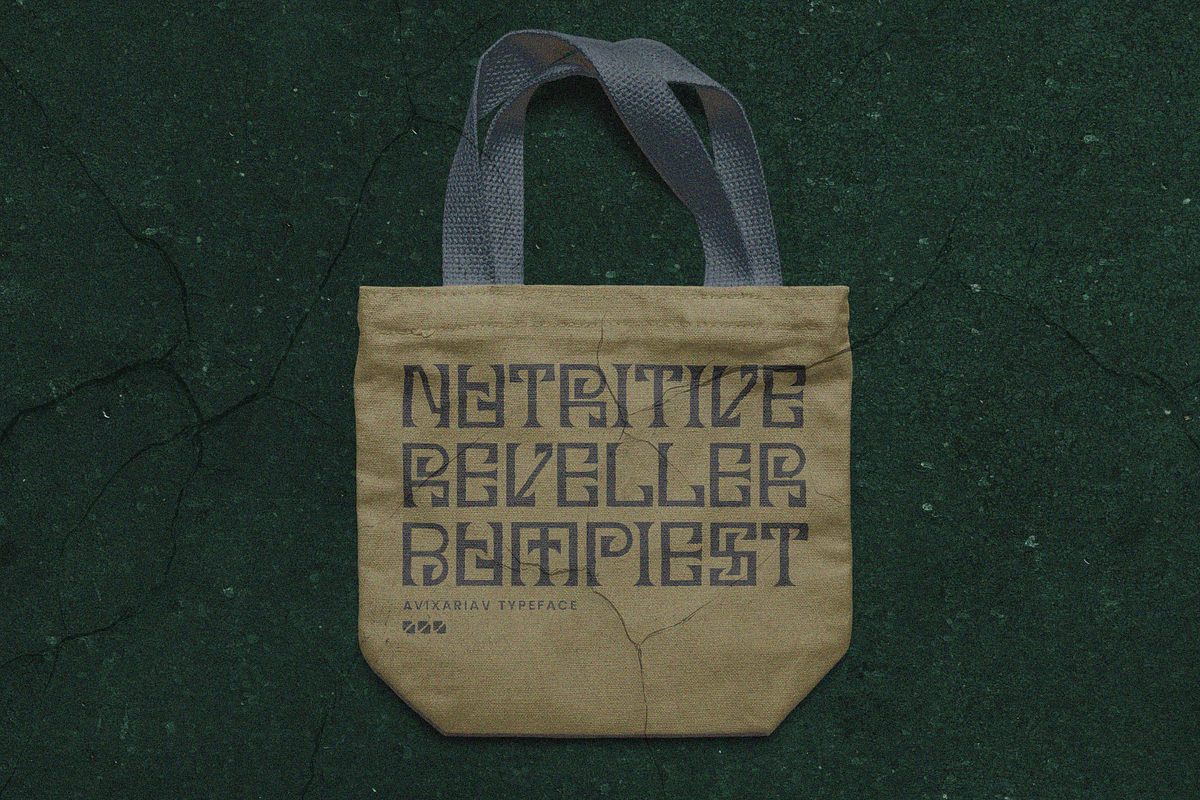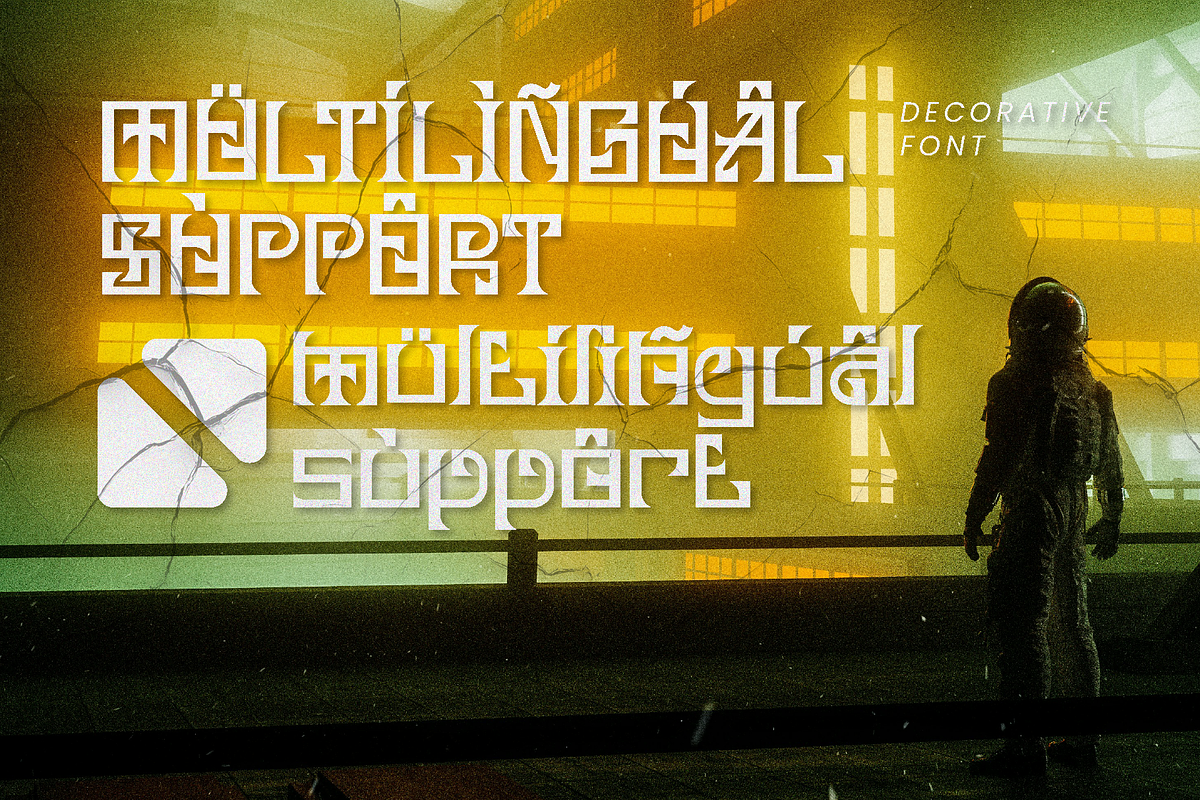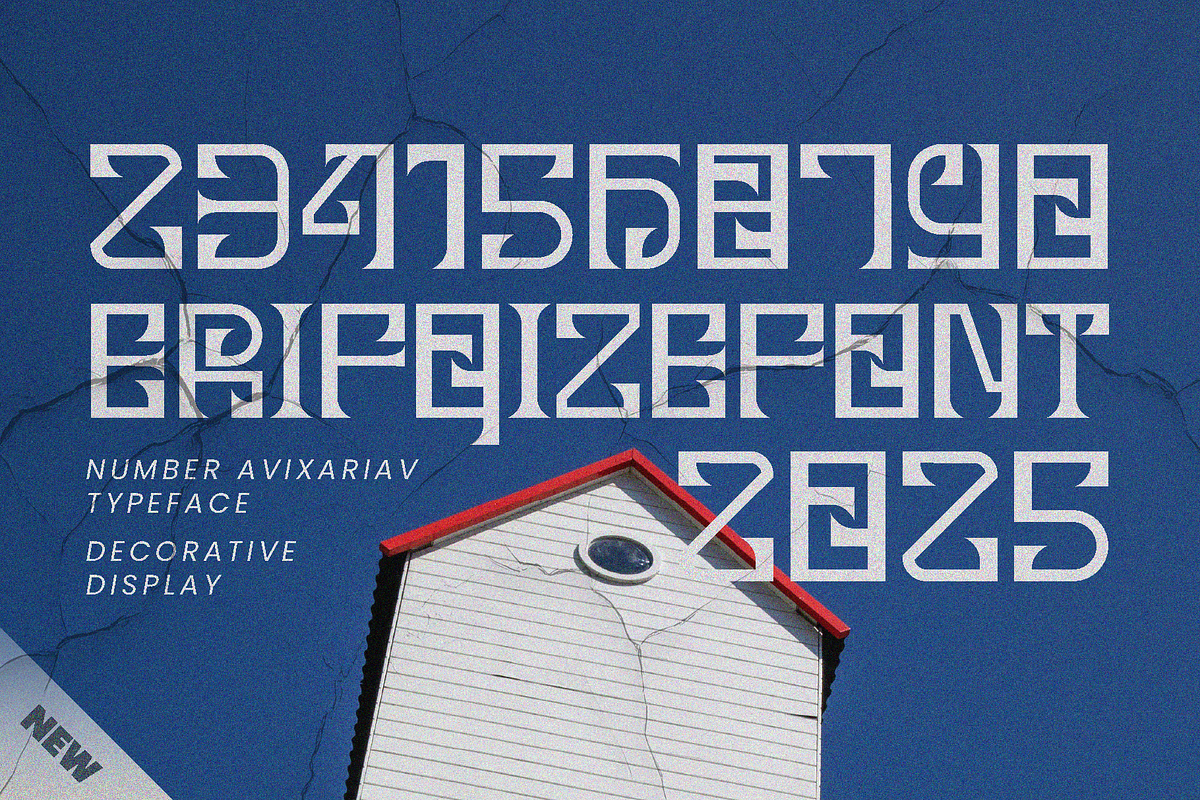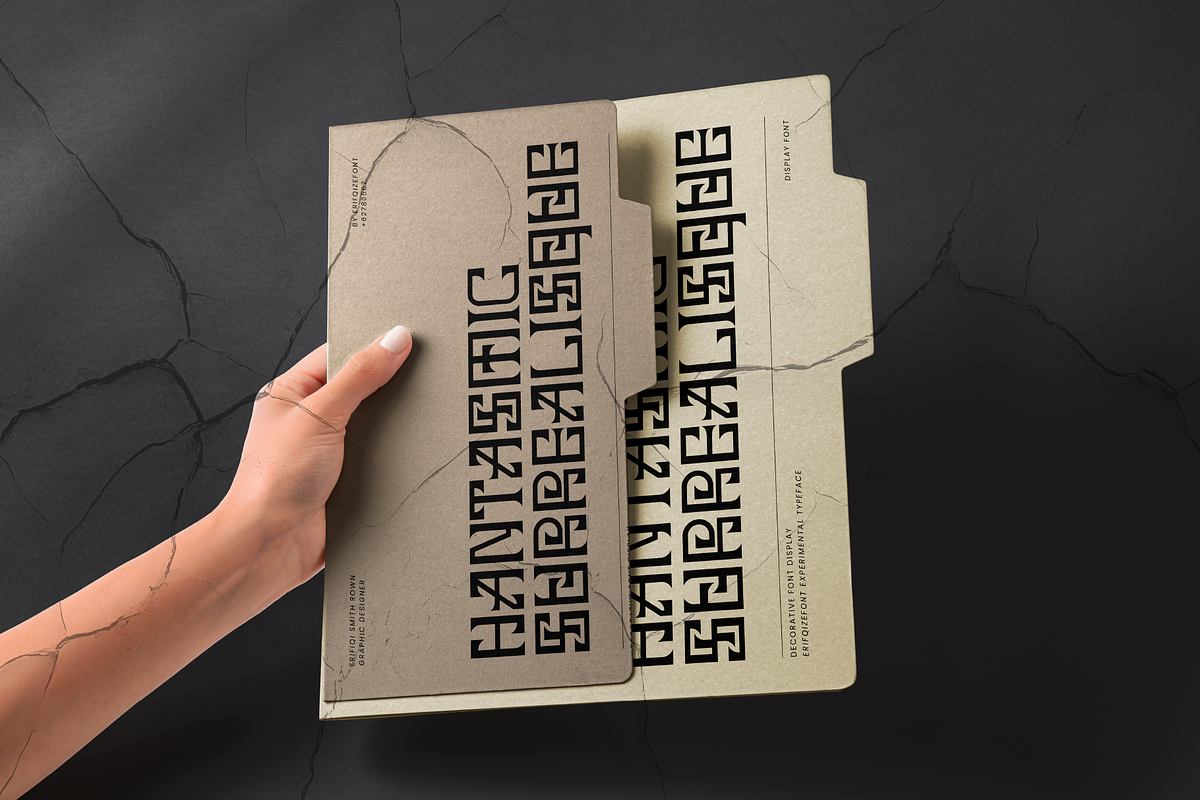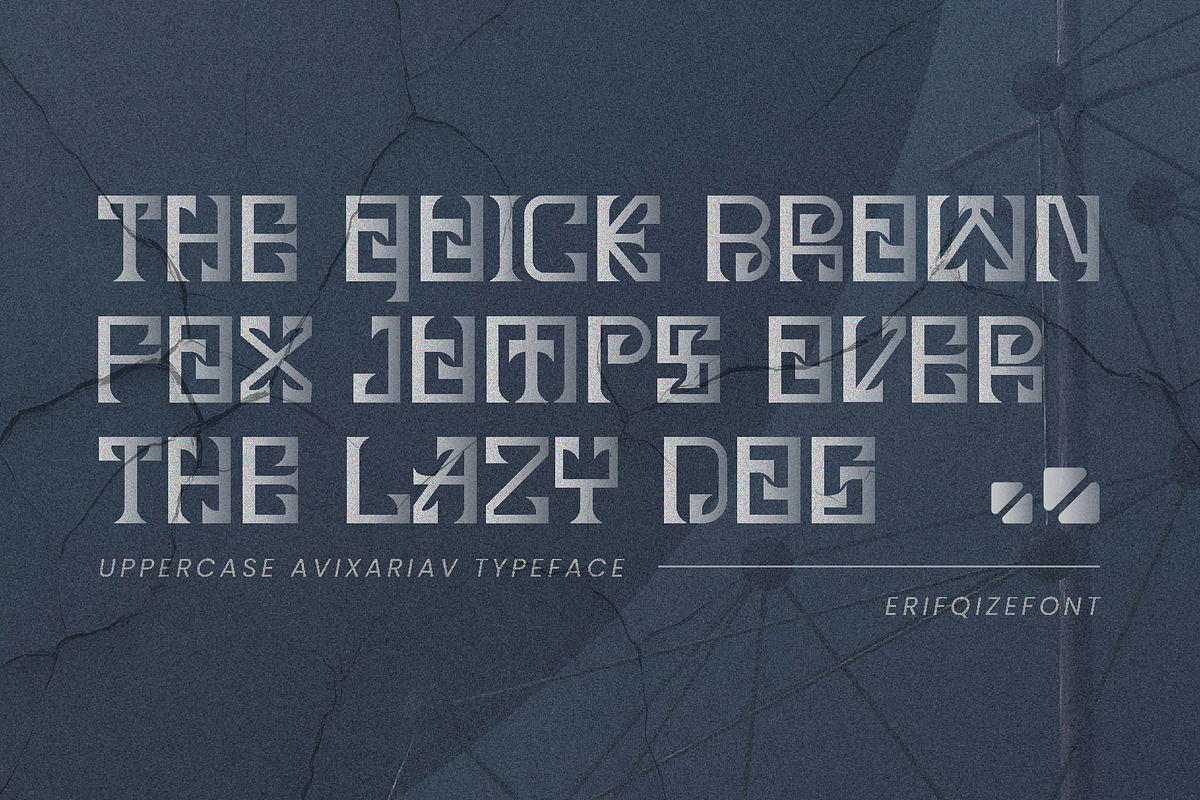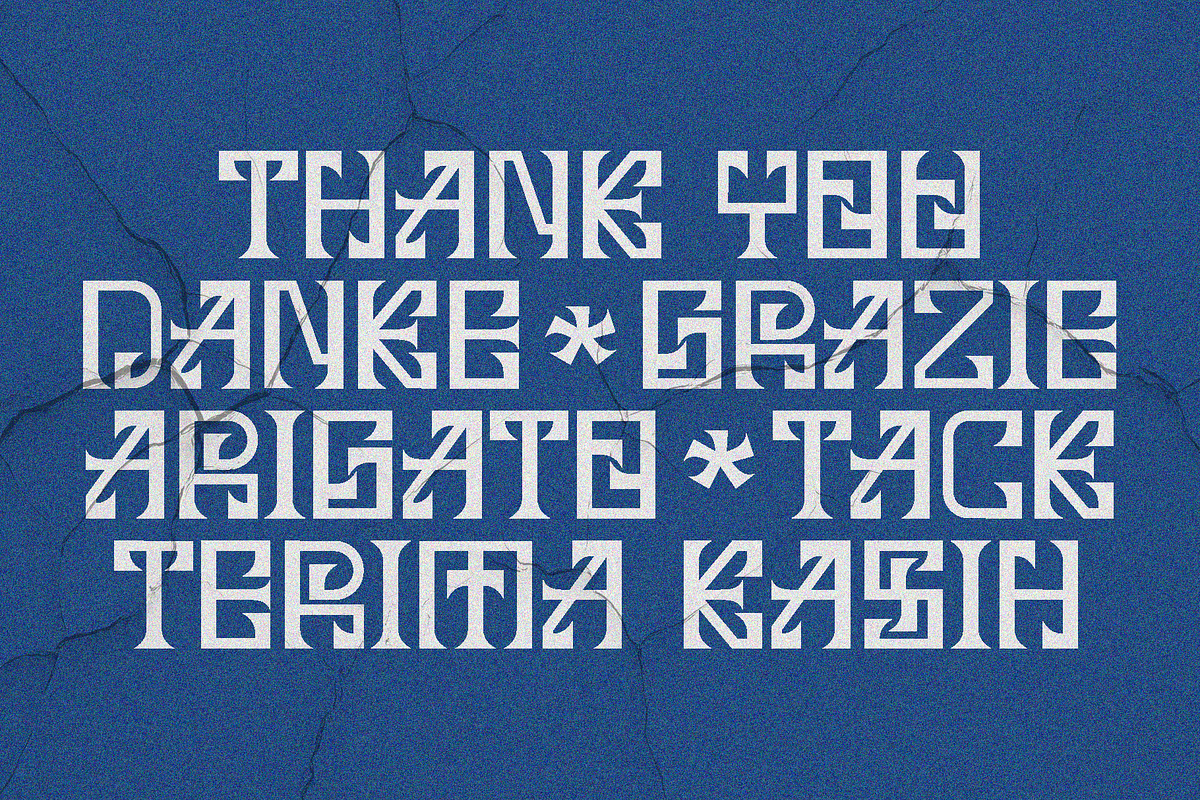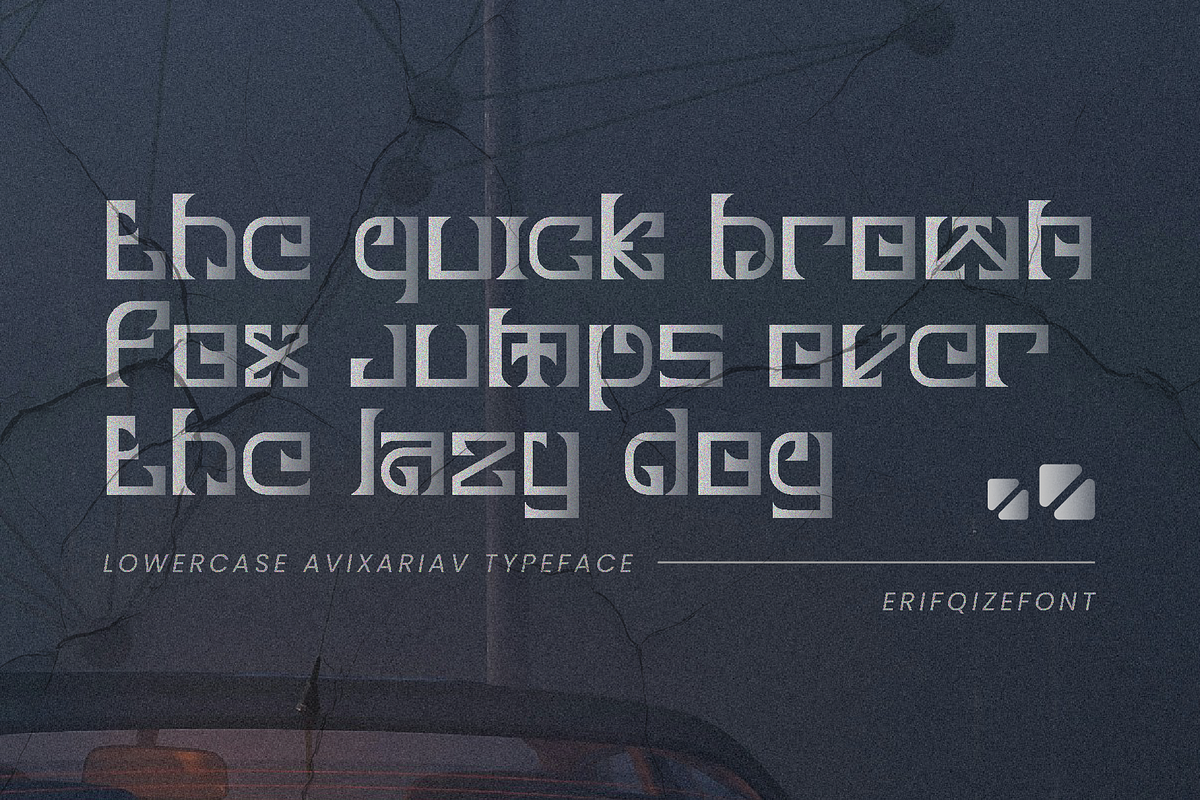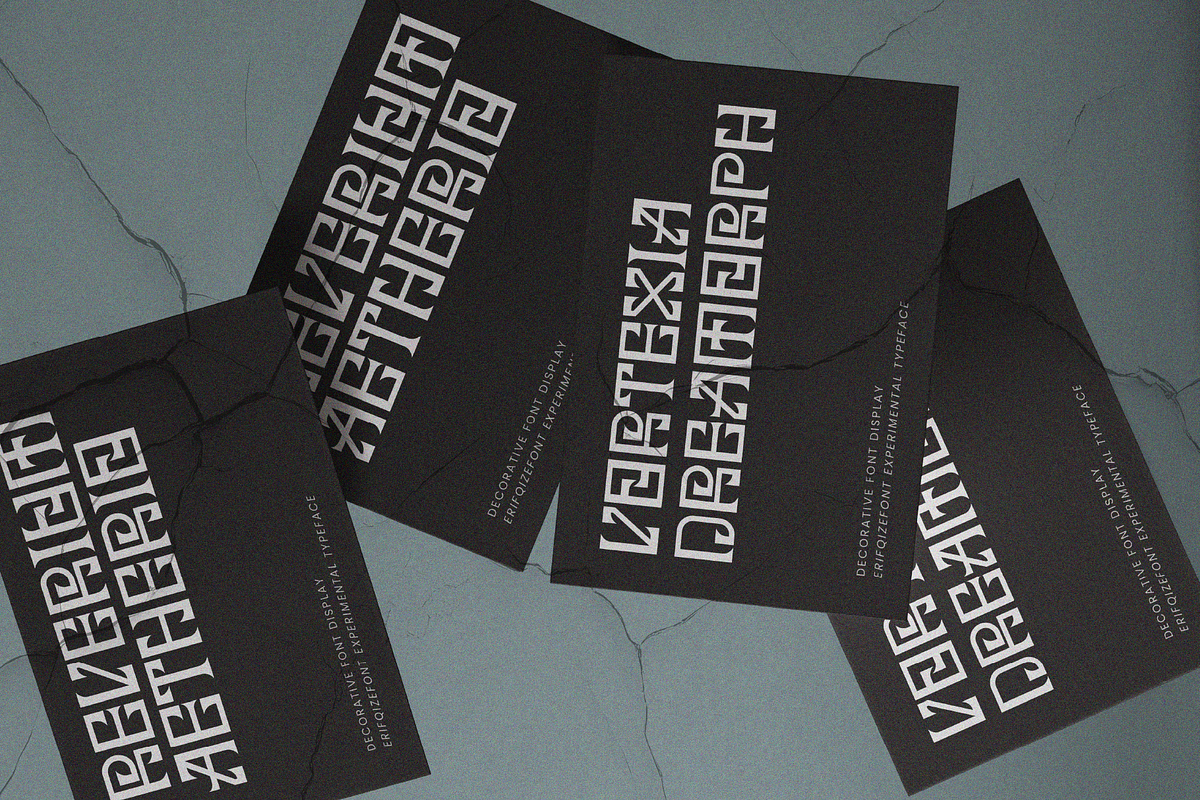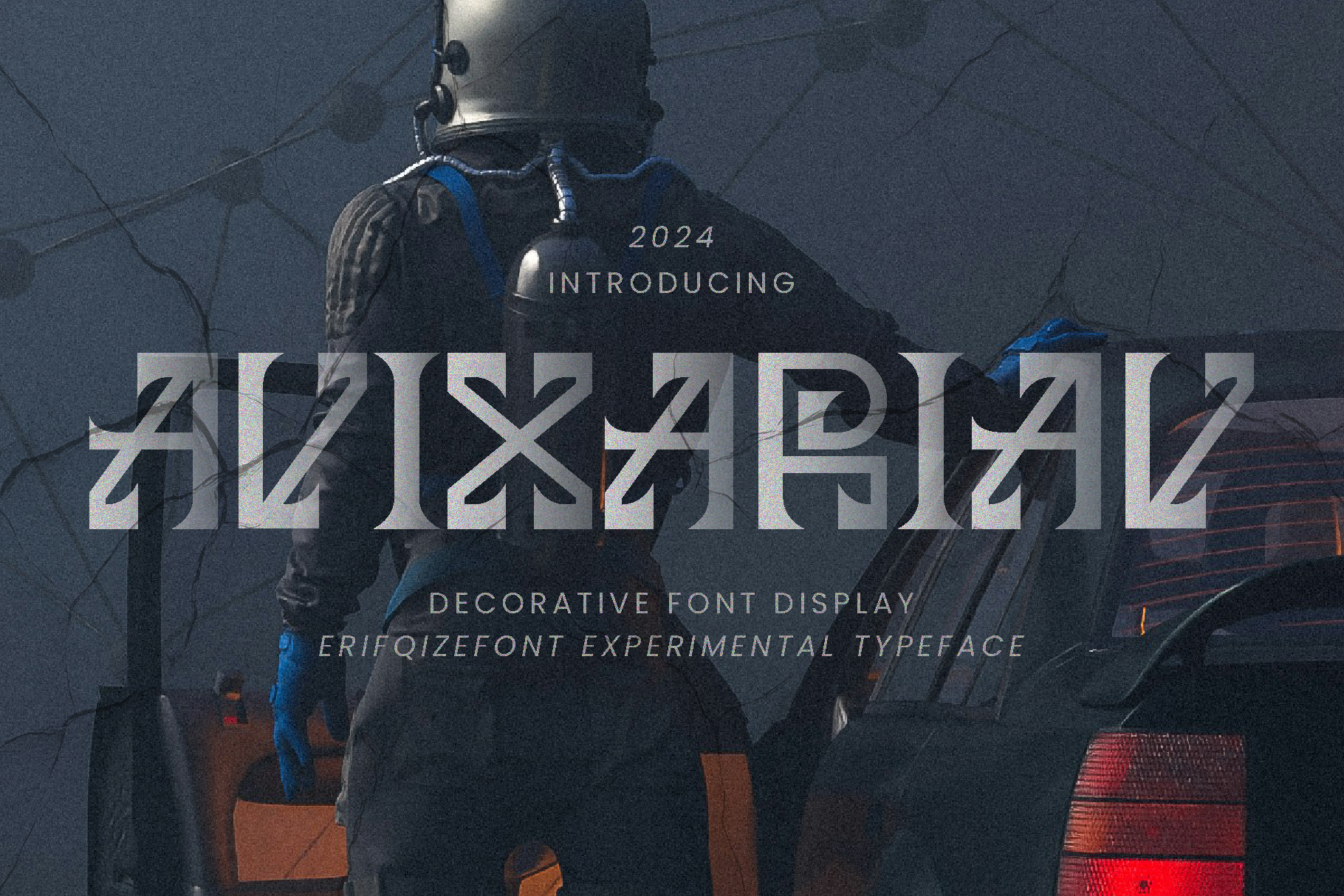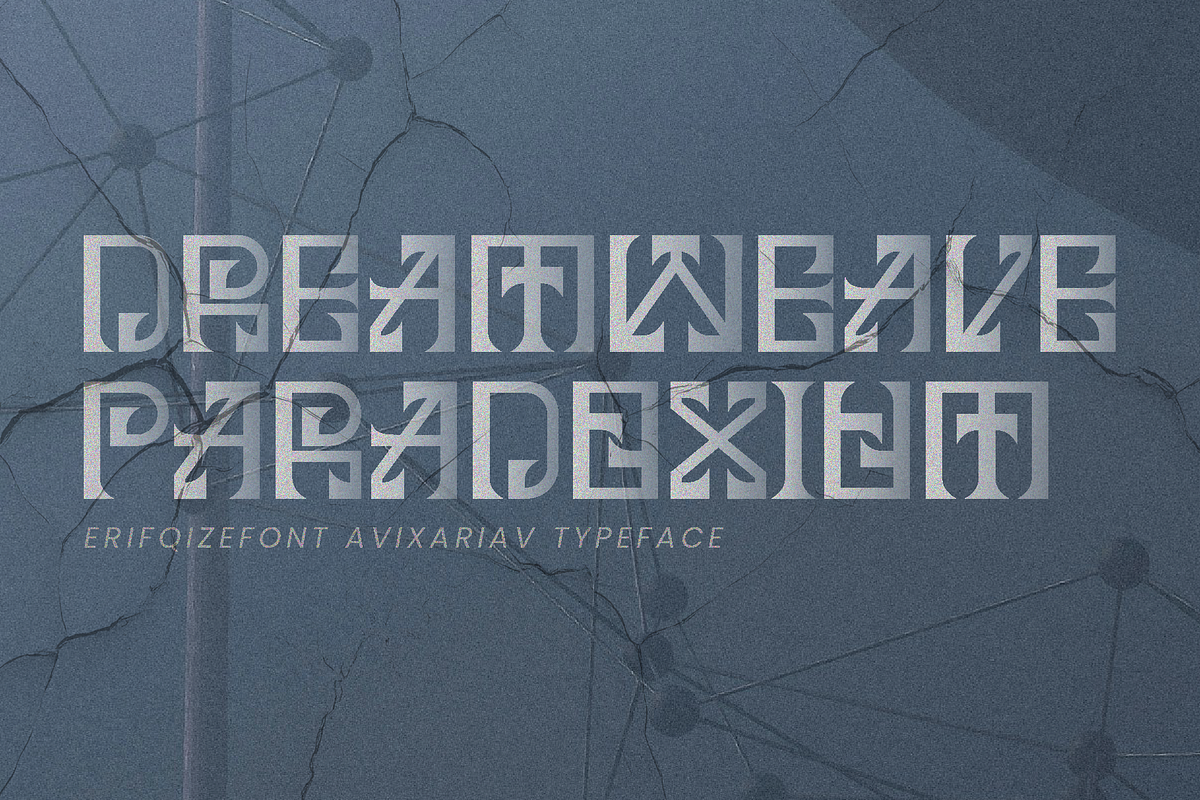
Avixariav Font
Step into a world of creativity and imagination with AVIXARIAV, a decorative serif font that transcends the ordinary. Bold and surreal, this display font captivates with its one-of-a-kind letterforms, each crafted to radiate strong character and unique charm.
Perfect for designers seeking to make a statement, AVIXARIAV is versatile enough for posters, logos, branding, or any project that demands attention. With multilingual support, it seamlessly bridges global appeal with artistic flair.
Unleash your creativity and let AVIXARIAV redefine how you express your ideas. Transform the surreal into reality today!